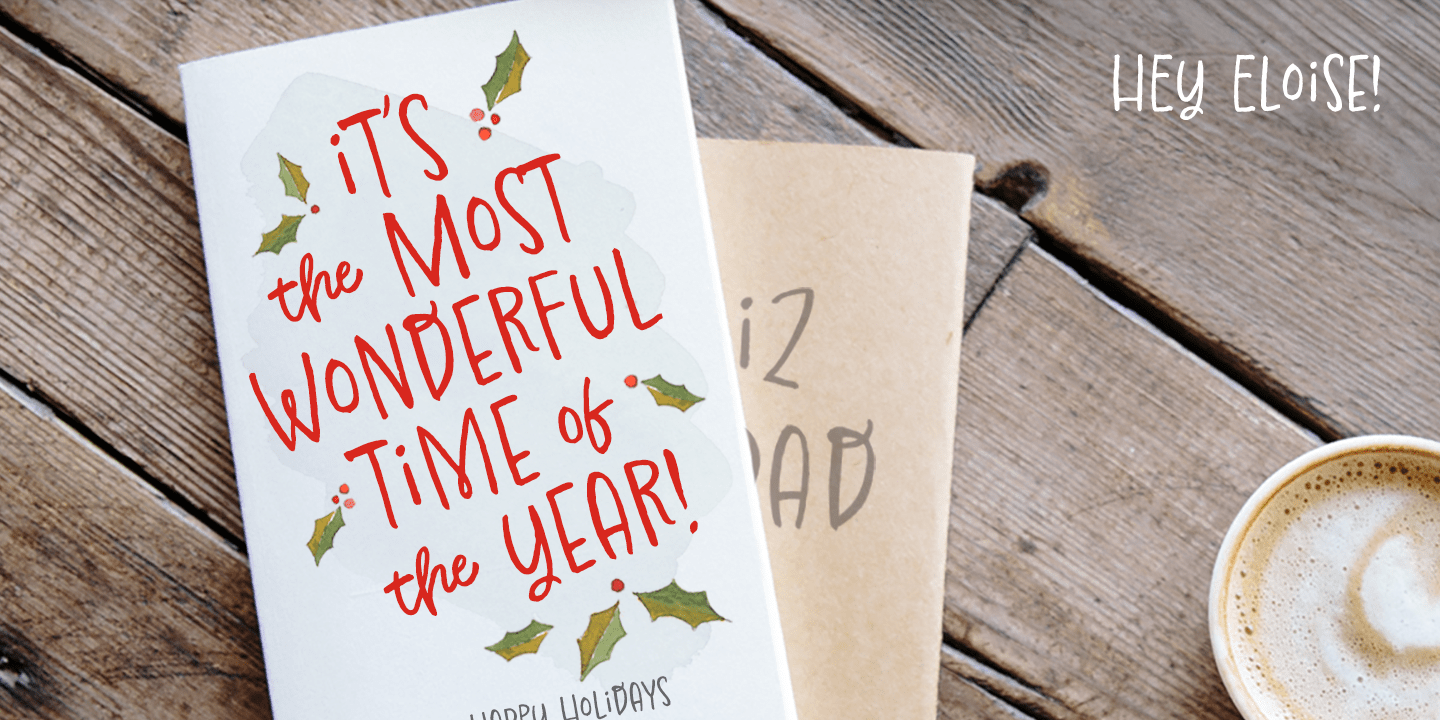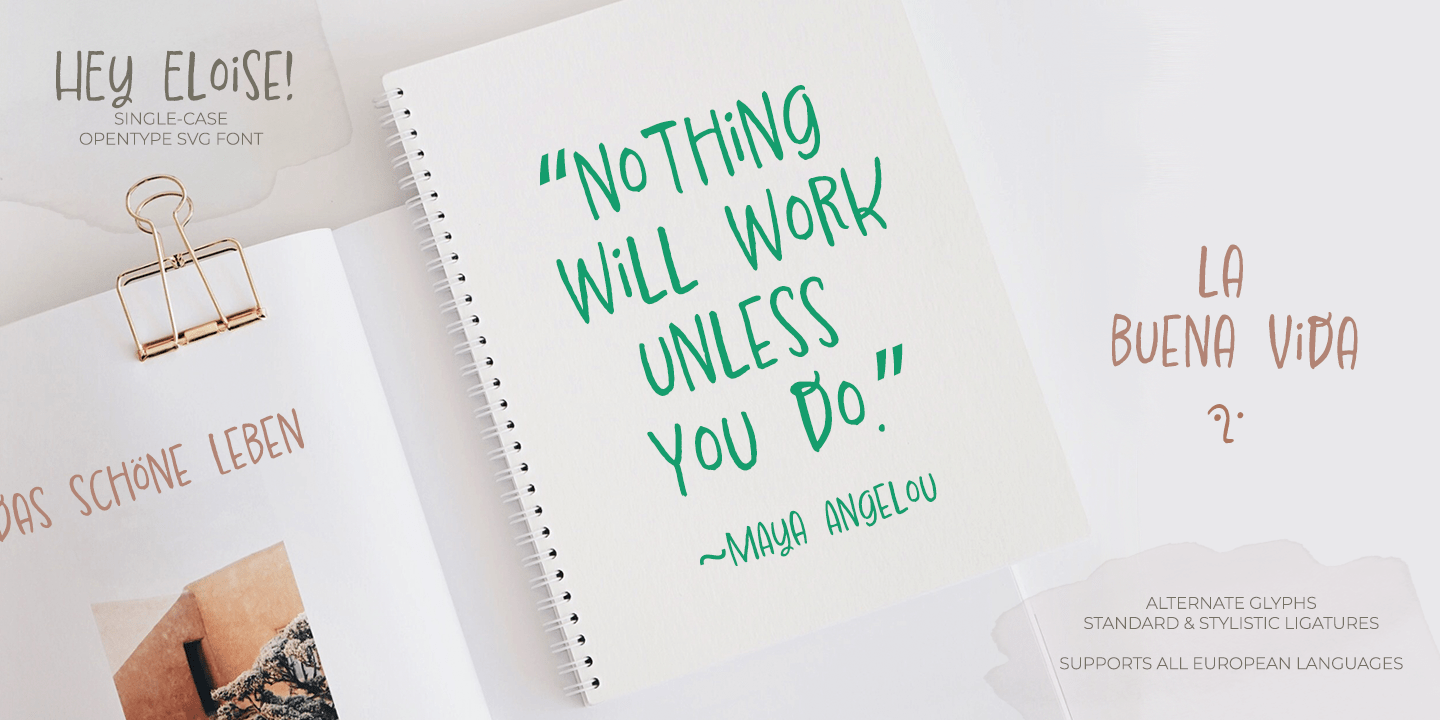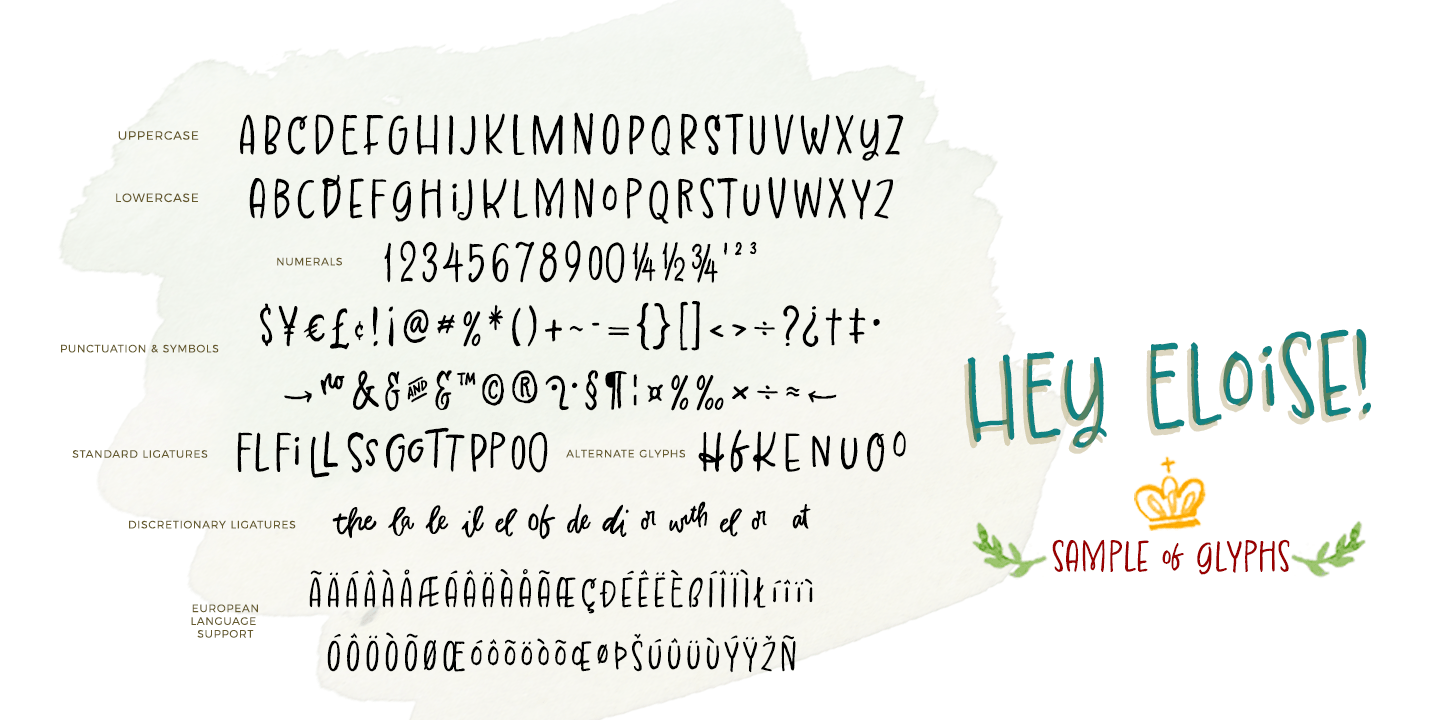
Hey Eloise!
Font Family by Tart Workshop
“My name is Eloise! I like to do lots of things….share pithy quotes on greeting cards, proudly promote cool businesses “LOOK at this!”, read good books (especially those with adorable art).
I was created by hand with a brush & palette and carefully translated into a handy dandy typeface. This version of Hey Eloise! is a solid standard vector font. (Contact us if you are interested in a watercolor SVG font version)
Hey Eloise a single-case font! Meaning, I speak in ALL-CAPS all the time. Simply switch between Caps Lock on & off to access alternative characters.  ¿No hablo inglés? No problem, I speak multiple European based languages. Additionally, I arrive with stylistic & discretionary ligatures plus bonus alternate glyphs you can access through the glyphs palette in Ps. I’m easy to personalize through my OpenType features. Can’t wait to create beautiful things together. ” – Love, Eloise